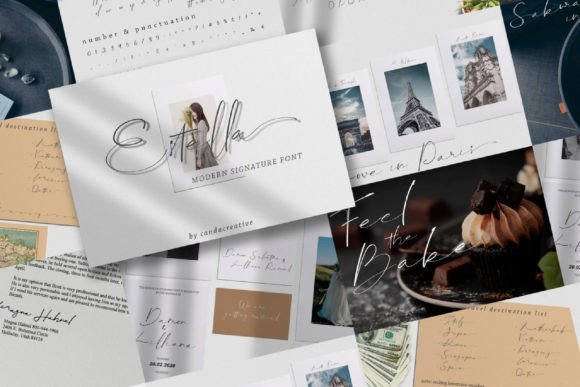
Introducing Estella Font, a striking script font ready to inject life into your creative projects. With Estella, you'll discover a font that dances across the page with its lively and balanced characters, leaving a lasting impression. Uncover the hidden gem and transform your digital creations with this exceptional handwritten font.
Step into a world of artistic expression, where Estella's unique charm captivates your audience. Its striking lines and graceful curves evoke a sense of elegance and sophistication, making every word a work of art. Whether you're crafting logos, branding elements, or simply adding a personal touch to your designs, Estella is the perfect choice for those seeking a touch of distinction.
Explore the endless possibilities that Estella Font presents. Its versatility knows no bounds, adapting seamlessly to a wide range of projects. From whimsical invitations and eye-catching social media graphics to stunning posters and website designs, Estella's presence adds a dash of enchantment to any visual project. Let your imagination run wild and create designs that radiate with individuality and charm.
At the heart of Estella Font lies the passion of Candacreative, the creative force behind this masterpiece. Each stroke and curve has been meticulously crafted to convey a message of artistry and uniqueness. Embrace the beauty of handmade typography and let Estella's organic charm elevate your designs to new heights.
As you type with Estella, feel the energy and inspiration flow through your fingertips. Experience the joy of creating something truly unique and captivating, something that reflects your own creative vision. With Estella as your companion, the possibilities are limitless. Unleash your imagination and let your designs shine brighter than ever before.